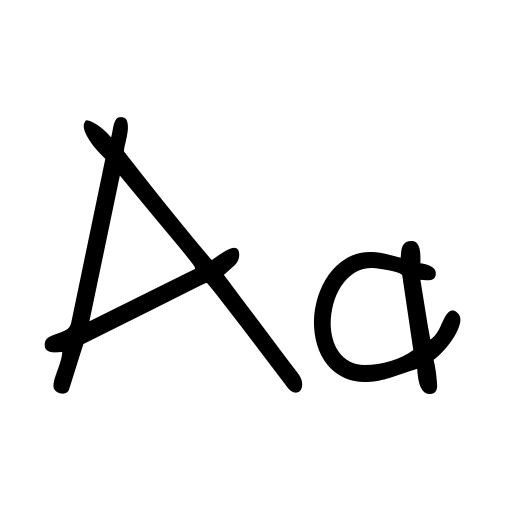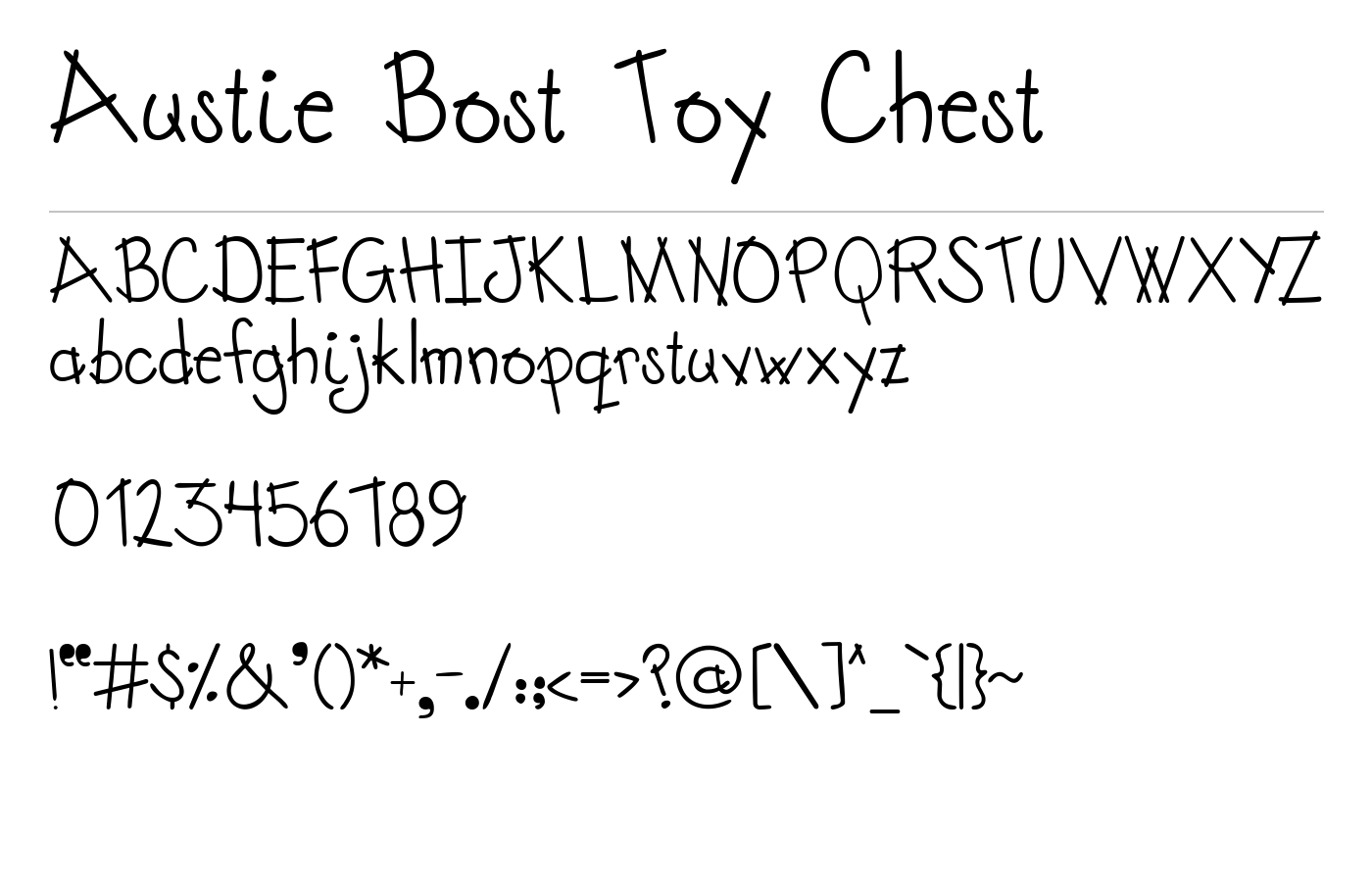
Austie Bost Toy Chest is a playful, hand-drawn sans serif font with irregular, whimsical letterforms that give it a casual and friendly feel. Its loosely structured strokes and quirky shapes make it perfect for children's materials, invitations, and creative projects seeking a fun and informal vibe. This font works well in headlines and display uses where a lively, approachable personality is desired.
Austie Bost Toy Chest Font
About Austie Bost Toy Chest Font
| Font family | Austie Bost Toy Chest Font |
| Designer | Austin Owens |